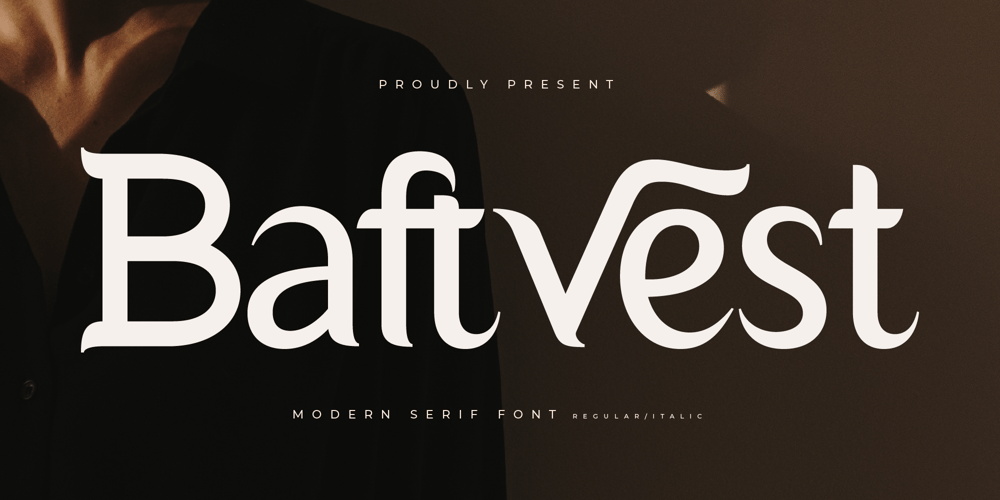
Baftvest Font Family was designed by Heru Utama Putra and published by Letterena Studios. Baftvest contains 2 styles and family package options. Baftvest is a luxurious display font that captivates with its regal charm and refined aesthetics. Crafted for grandeur, its stately characters and intricate details exude sophistication. Elevate your designs with the timeless elegance of Baftvest, a font that commands attention and exudes opulent style.